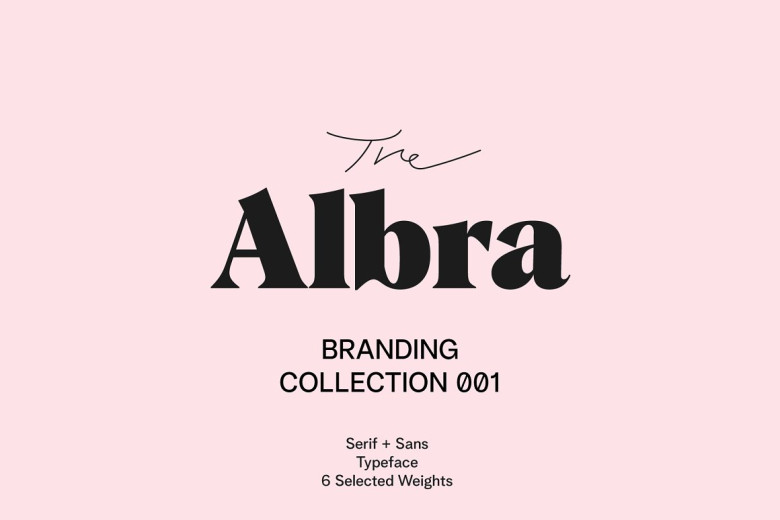
Albra Font Family
Albra Font
Albra Branding Collection Font especially created for the world of branding, the combination of the best from two collections. Presenting you all you should need to get the job done perfectly. The Collection includes: Albra Regular, Albra Semi, Albra Black, Albra Grotesk Regular, Albra Grotesk Semi, Albra Grotesk Black Contains more than 500 Glyphs and a large numbers of weights and wide variety of open type features. Timeless workhorse for many possibilities.
Albra Branding Collection Font Family